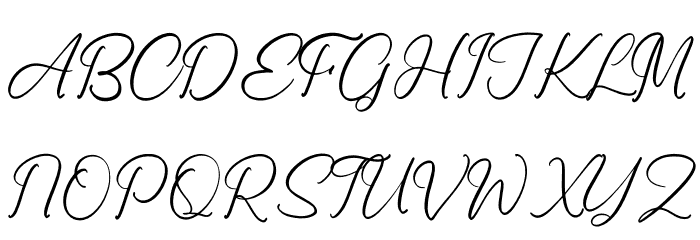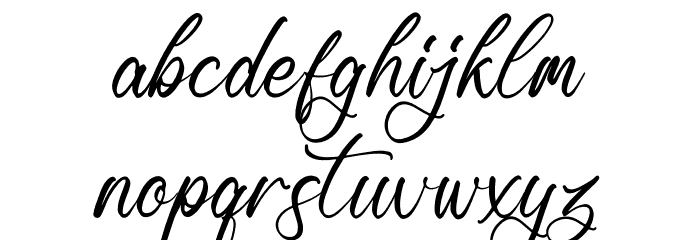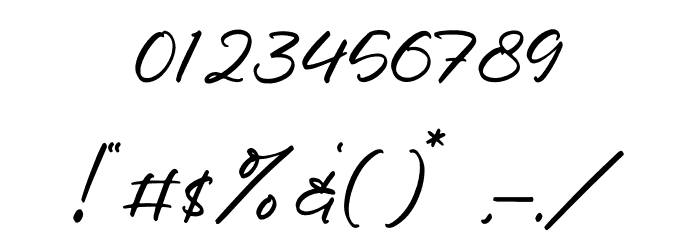
Ronald Mendoya Font
This font features an elegant and flowing script style, characterized by its smooth, cursive lines and graceful curves. The uppercase letters are slightly more elongated, adding a touch of sophistication, while the lowercase letters maintain a consistent flow, enhancing readability. The numerals and special characters are designed to complement the overall script style, ensuring a cohesive look. The font's delicate strokes and balanced proportions make it suitable for projects that require a touch of elegance and personal flair.
An elegant, flowing script font with smooth, cursive lines and graceful curves.
- Proposed Projects: Ideal for wedding invitations, greeting cards, personal branding, and elegant logos.
- Category: Script
- Italic: Yes
- Overall Style: Elegant
- Use Case: Logos, Invitations, Personal Branding